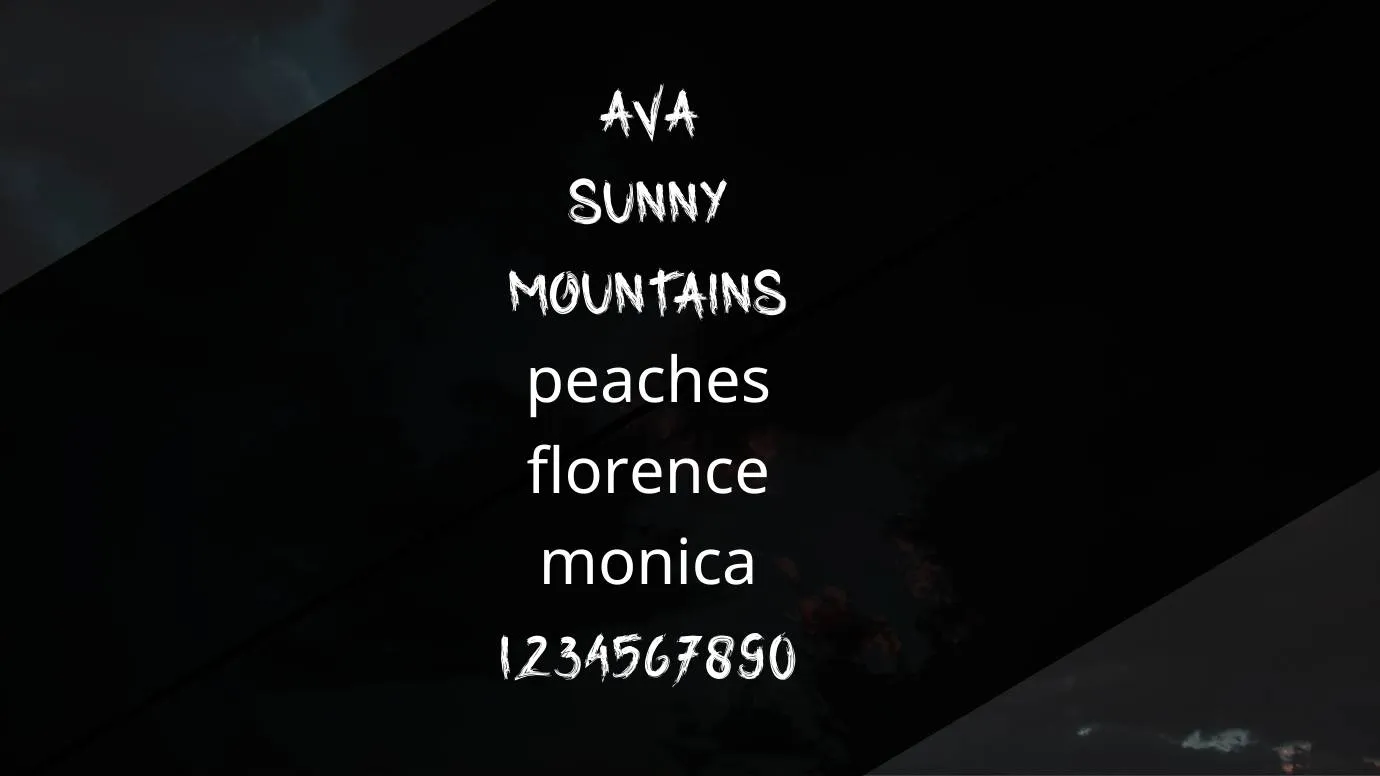
Grim Reaper Font is a comic typeface based on the popular horror movie character. It is a stunning and attractive typeface. This typeface was designed by an Indonesian typeface designer. This typeface is good for covers, titles, and invitation cards.
Grim Reaper typeface is available in different styles, so you can choose the one that best suits your needs. If you’re looking for a more traditional font, try the Regular or Bold styles. For something more fun and festive, try the Shaded or Outlined styles. No matter which style you choose, the Grim Reaper typeface is sure to add a touch of terror to your text.
Grim Reaper typeface has a complete set of characters including upper and lowercase letters, numbers, and punctuation. You can use it for a variety of purposes such as invitations, flyers, posters, and more. This typeface is similar to the venom font.
Designer of Grim Reaper Font
This attractive and amazing typeface is designed by an Indonesian typeface designer Nanda Hardiansyah for the foundry Nahar Studio in 2020.
This font style is created with an exclusive and consistent style. This single attractive style is a combination of various characteristics, including capital and small alphabets, numbers, symbols, special characters, punctuations, glyphs, and different language support.
View of Grim Reaper Font
| Name | Grim Reaper Font |
| Style | Comic |
| Designer | Nanda Hardiansyah |
| Foundry | Nahar Studio |
Is Grim Reaper Font a monospaced font?
No, Grim Reaper typeface is not a monospaced font.